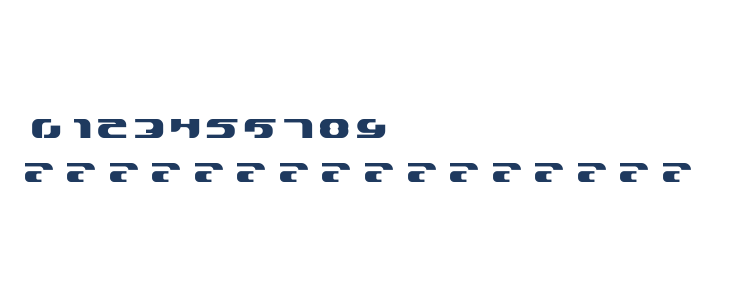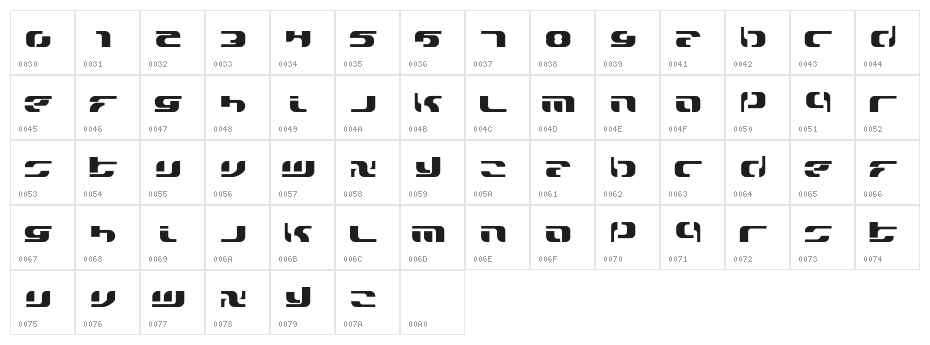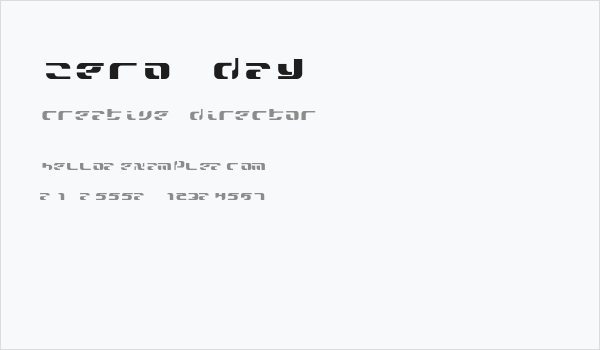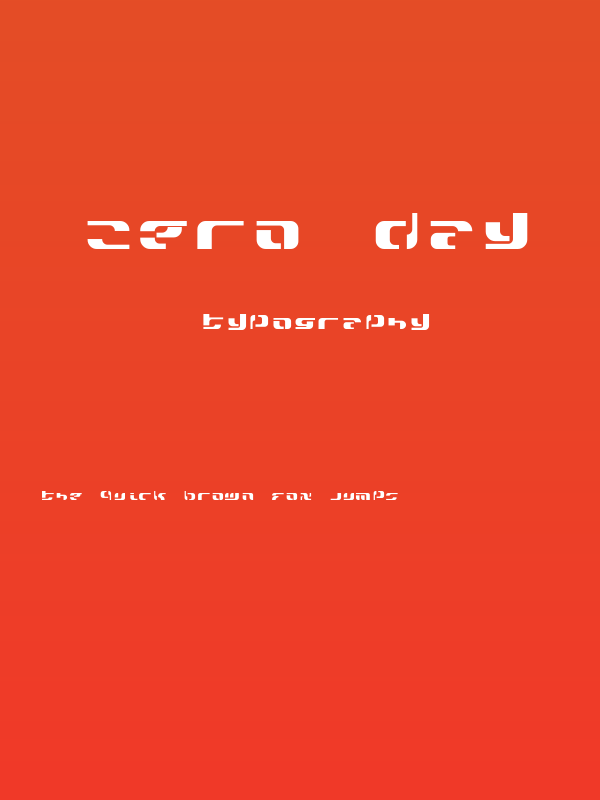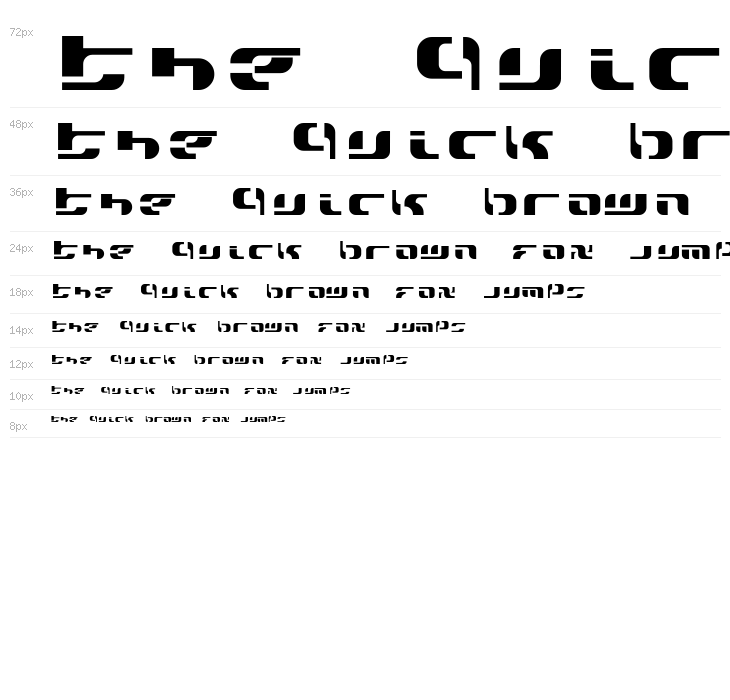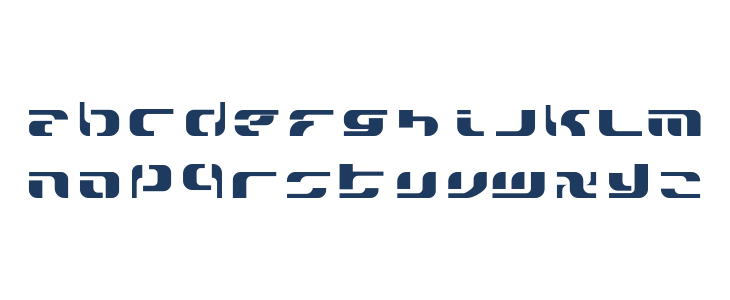
Zero Day Font
Zero Day Description
This font features a futuristic and geometric design, characterized by its bold and angular letterforms. Each character is constructed with sharp edges and a distinct block-like appearance, creating a sense of modernity and technological advancement. The font maintains a consistent weight throughout, providing a uniform and cohesive look. Its unique style is further emphasized by the use of negative space, which adds an element of intrigue and complexity to the overall design. The characters are evenly spaced, ensuring readability while maintaining its distinctive aesthetic.
| Use Case | Logos, Headlines |
| Proposed Projects | Ideal for technology branding, sci-fi posters, video game titles, and modern digital interfaces. |